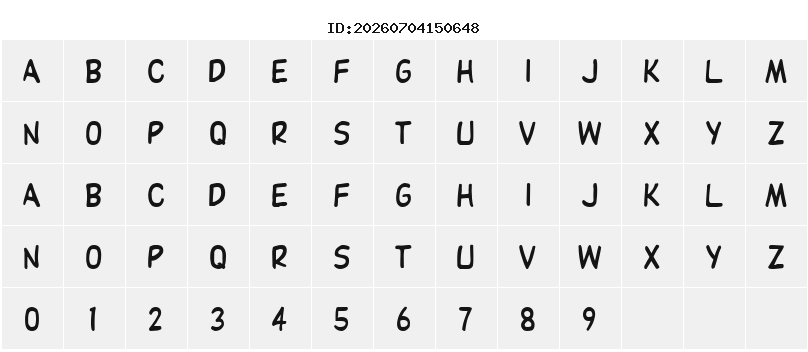
DupuyHeavy Preview
• Font Name: DupuyHeavy
• Full Font Name: DupuyHeavy Regular
About DupuyHeavy.ttf
DupuyHeavy.ttf is a modern, elegant sans-serif font designed for ultimate readability and visual harmony. Perfect for branding, headlines, web design, and print materials.